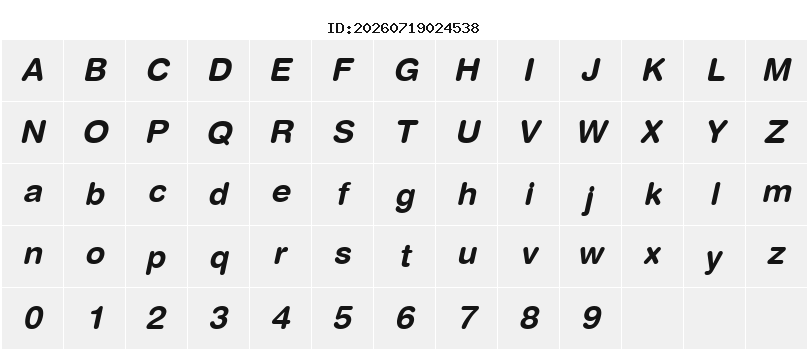
• Font Name: Context Rounded SSi
• Font ID: FontMonger:Context Rounded SSi Bold Italic
• Full Font Name: Context Rounded SSi Bold Italic
• PostScript Name: ContextRoundedSSiBoldItalic
About Context Rounded SSi.ttf
Context Rounded SSi.ttf is a modern, elegant sans-serif font designed for ultimate readability and visual harmony. Perfect for branding, headlines, web design, and print materials.